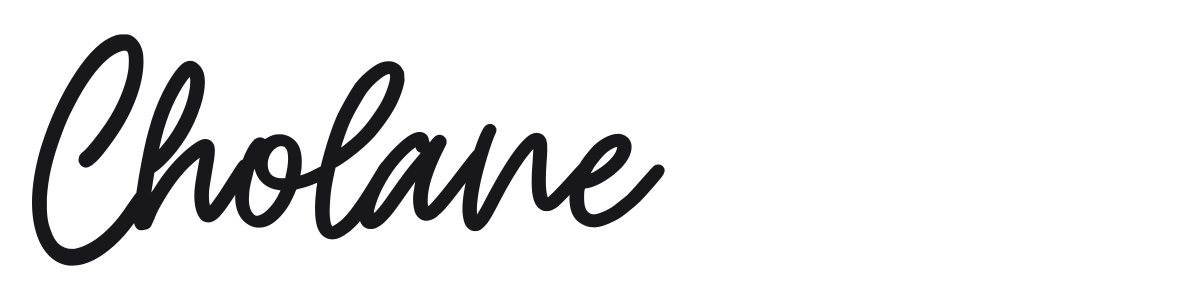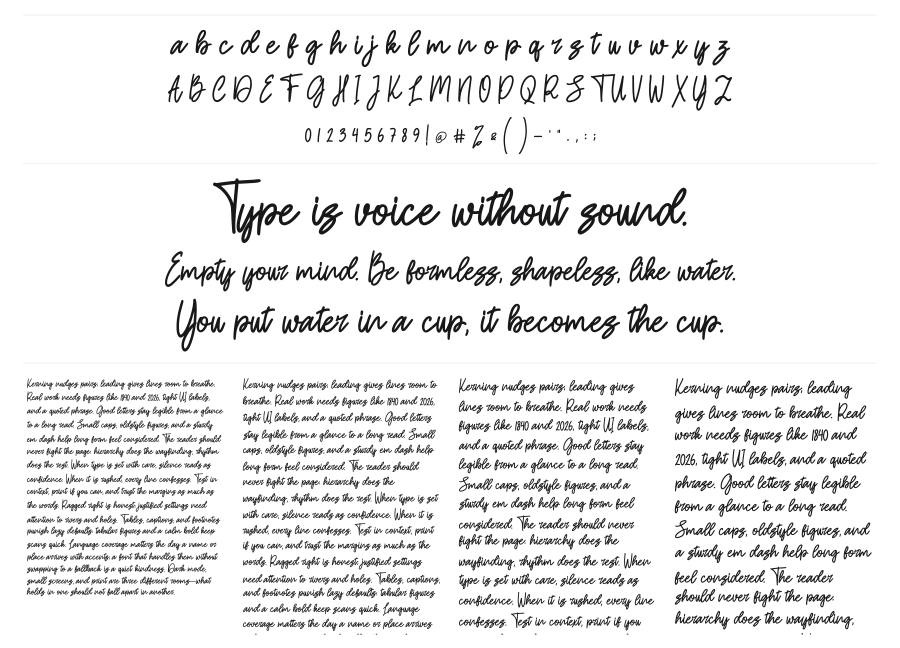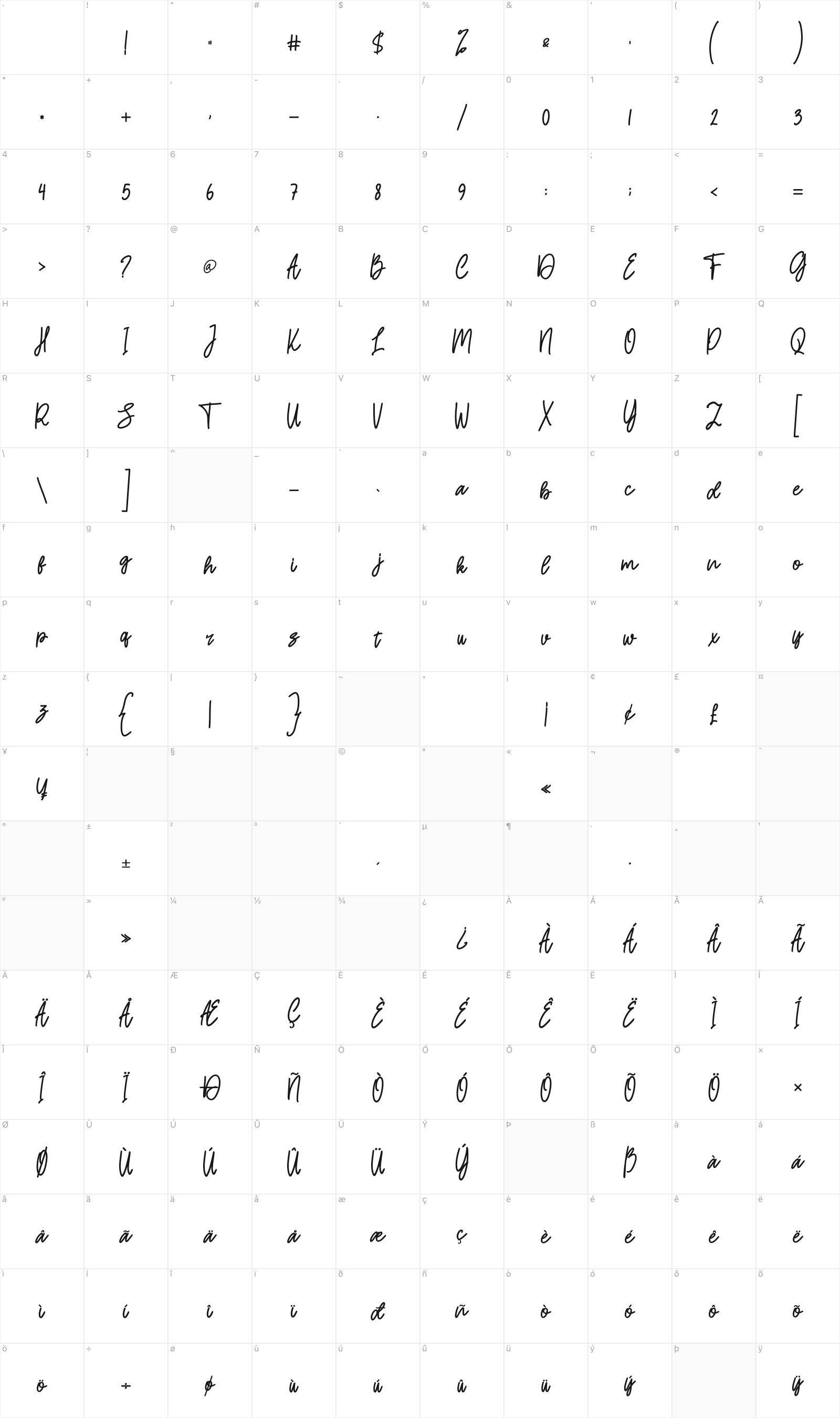
Cholane
Cholane is a bold brush script from Skiiller Studio with lively, connected strokes and a natural hand-lettered rhythm. The generous weight and looping characters give it strong visual presence, while the casual flow keeps it approachable rather than formal. It reads best at headline sizes where its brush energy can fully come through.